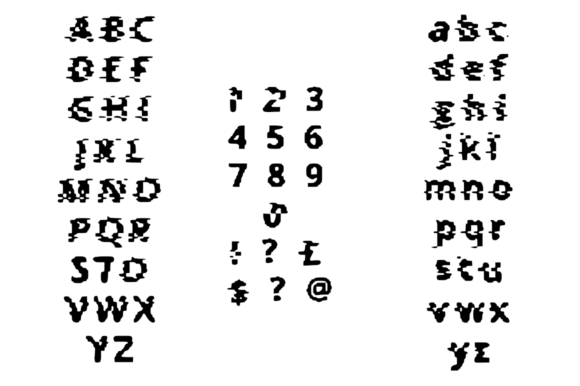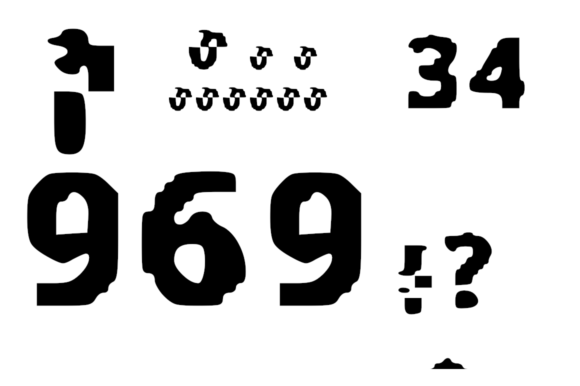
Introduction to Glitch System Font
Have you ever spent hours staring at a blank canvas, waiting for the perfect font to inspire your next creative project? For many designers, finding the right typography can be the difference between a good design and a great one. And if you’re a fan of glitch art or love the aesthetic of a distorted screen, you’re in luck – because today we’re diving into the world of the Glitch System Font.
This unique, glitched screen typeface comes in both uppercase and lowercase versions, complete with numbers and symbols, making it an ideal design resource for anyone looking to add a touch of edginess to their work. With its transparent background and high-quality design, the Glitch System Font is a valuable addition to any designer’s toolkit.
Key Features of Glitch System Font
- Unique Glitch Effect: The Glitch System Font features a distinctive glitch effect that adds a touch of digital distortion to your design, perfect for creative projects.
- High-Quality Design Resource: This font is a high-quality design resource that is ideal for use in graphic design, digital art, and other creative applications.
- Transparent Background: The font includes a transparent background, making it easy to use in a variety of design contexts and allowing for seamless integration with other design elements.
- High Resolution: The font is available in high resolution, making it perfect for use in large-scale designs and prints.
- Perfect for Digital Art and Graphic Design: The Glitch System Font is a versatile design resource that is perfect for use in digital art, graphic design, and other creative applications.
Honest Review: Glitch System Font
I recently had the chance to work with the Glitch System Font, and I must say it’s been a game-changer for my design projects. The first thing that caught my attention was its high quality and versatility. It’s perfect for any creative project that needs a unique touch.
- ✨ The font’s glitch effect is incredibly realistic, giving my designs a futuristic feel.
- ✨ The font is highly customizable, making it easy to adjust to any color scheme or design style.
- ⚠️ The font may not be suitable for designs that require a lot of text, as the glitch effect can be overwhelming.
Overall, I’m really impressed with the Glitch System Font. It’s a fantastic design resource that adds a unique touch to any creative project. With its high quality and customization options, it’s definitely worth considering for your next design project.
Tips for Getting the Most Out of the Glitch System Font
Experiment with different font sizes and styles to achieve the desired effect.
Combine the font with other design elements to create a unique and eye-catching design.
The Glitch System Font is perfect for:
Graphic design projects that require a futuristic or tech-inspired look.
Video game design and development.
Cyberpunk-themed creative projects.